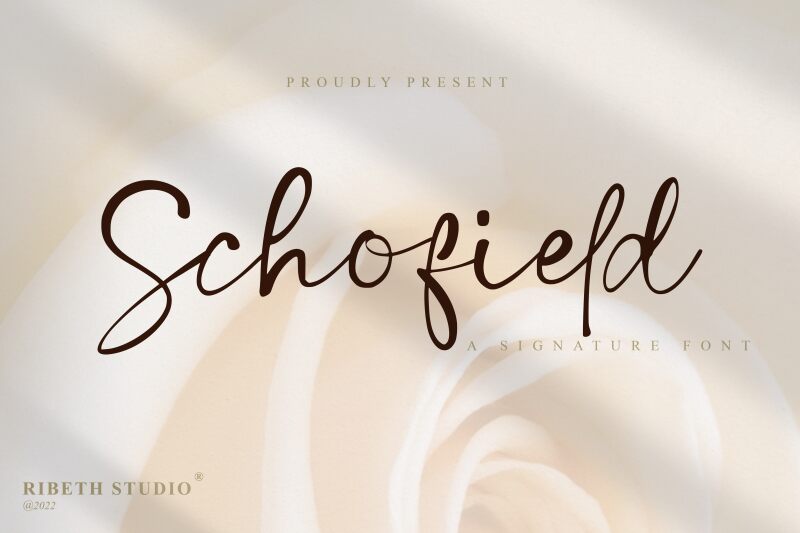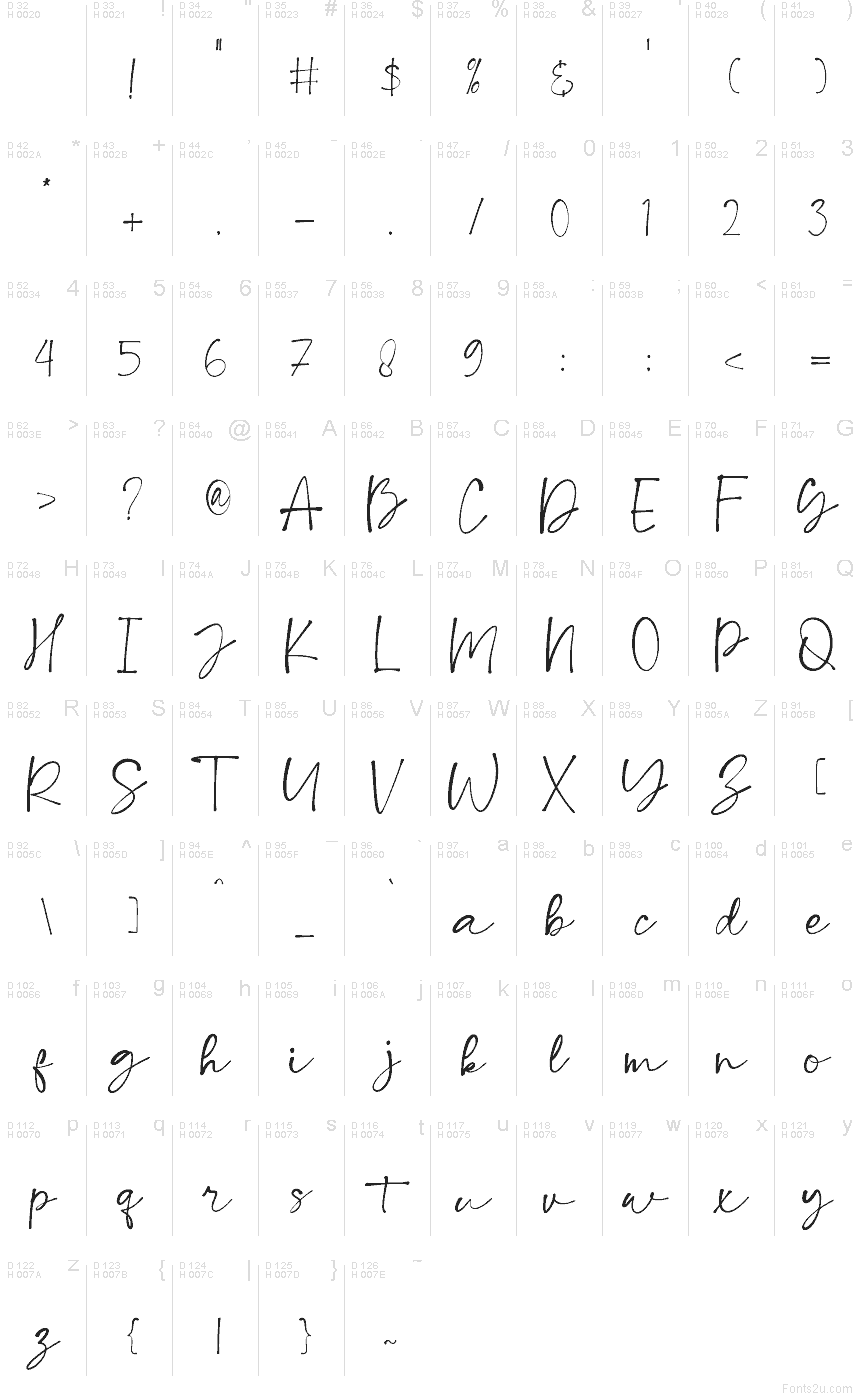
Schofield
Schofield font by Ribeth Studio is a free handwritten font that feels like a confident signature drawn with a smooth, inky pen. The strokes stay clean and airy, with long looping connections and a gentle rightward slant that keeps the rhythm flowing without getting messy. It has that personal, handwritten polish—casual, but still tidy enough to read at a glance.
Using Schofield on wedding invites, brand wordmarks, beauty packaging, café menus, social posts, quote graphics, and boutique labels gives your type a warm, human finish. This free font shines when you give it room to breathe—try it larger for names and headlines, then pair it with a simple sans typeface for the details so the script can do the talking.